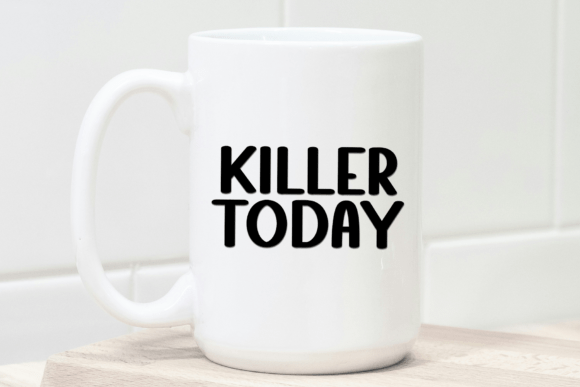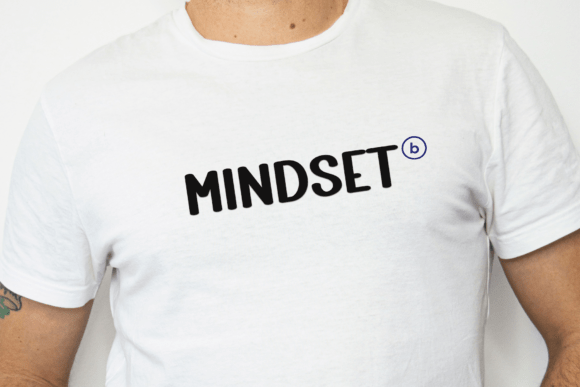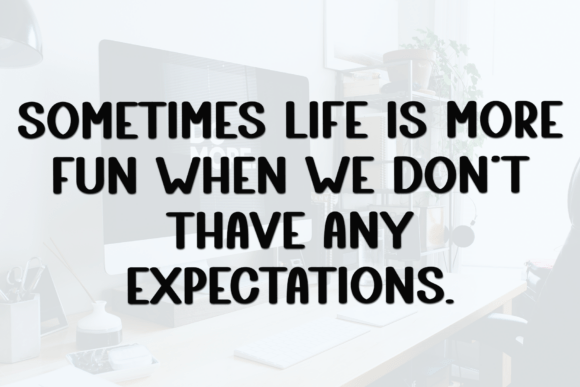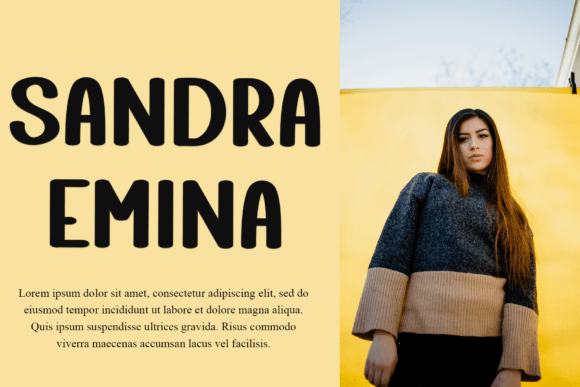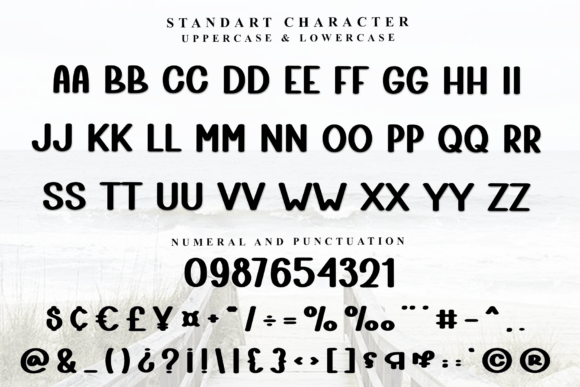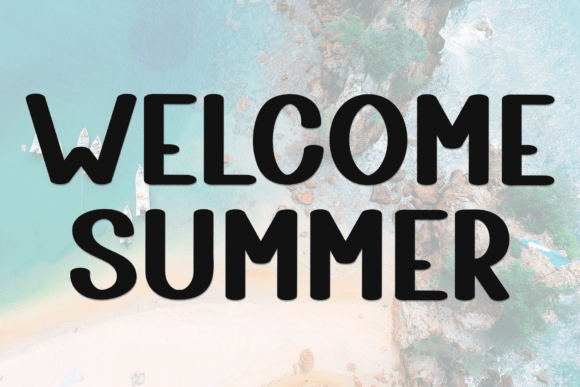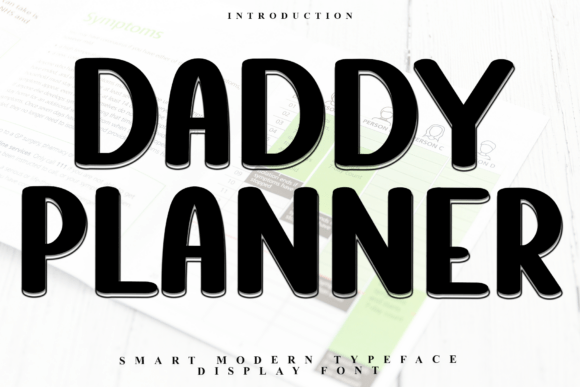
Daddy Planner Font: Elevate Your Designs with a Unique and Versatile Typeface
In the world of design, a font can make all the difference in creating a visually appealing and engaging project. If you’re a designer, crafter, or creative looking for a font that stands out from the crowd, look no further than the Daddy Planner Font. This beautiful and eye-catching font is designed with a soft, unique touch that is sure to capture the attention of your audience.
What Sets Daddy Planner Font Apart
The Daddy Planner Font is distinguished by its distinctive strokes, which give it a special character that sets it apart from other fonts. Its unique design makes it meaningful and versatile, perfect for a wide range of applications, from design projects and crafts to creative works and more. With a variety of characters to choose from, you can add a personal touch to your designs and make them truly one-of-a-kind.
Whether you’re working on a graphic design project, creating handmade crafts, or developing a brand identity, the Daddy Planner Font is the perfect choice. Its natural font style and soft touch make it ideal for creating visually appealing designs that will resonate with your audience. From invitations and greeting cards to logos and branding materials, this font is sure to elevate your designs and make them stand out.
Enhance Your Designs with Daddy Planner Font
The Daddy Planner Font is designed to enhance your designs and make them appealing to a wide range of audiences across different artistic and creative fields. Its unique and eye-catching design makes it perfect for designers, crafters, and creatives who want to add a personal touch to their work. With this font, you can create designs that are not only visually appealing but also meaningful and engaging.
Key Features of Daddy Planner Font
- Unique and eye-catching design: The Daddy Planner Font features a soft, unique touch that sets it apart from other fonts.
- Distinctive strokes: The font’s distinctive strokes give it a special character that makes it meaningful and versatile.
- Variety of characters: The font comes with a range of characters, making it perfect for design projects, crafts, and creative works.
- Ideal for design projects and crafts: The font’s natural style and soft touch make it perfect for creating visually appealing designs.
In conclusion, the Daddy Planner Font is a beautiful and versatile typeface that is perfect for designers, crafters, and creatives looking to elevate their designs. Its unique and eye-catching design, distinctive strokes, and variety of characters make it a valuable addition to any design project. With its compatibility with various applications and platforms, this font is sure to become a go-to choice for creatives looking to add a personal touch to their work.